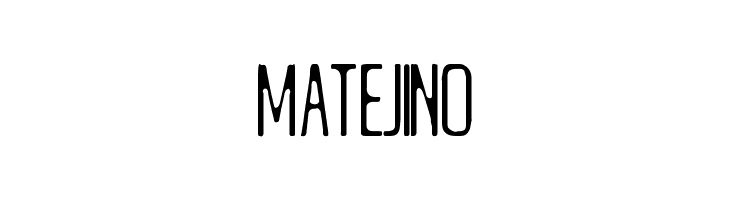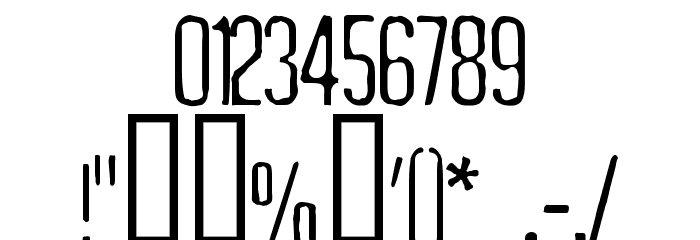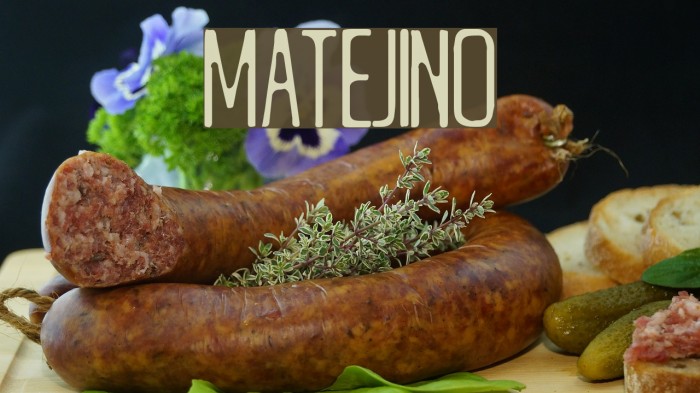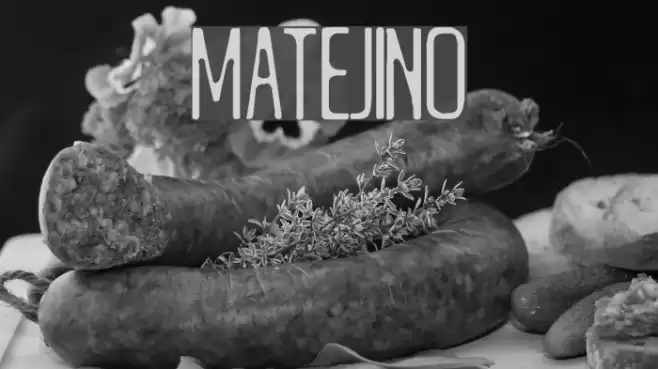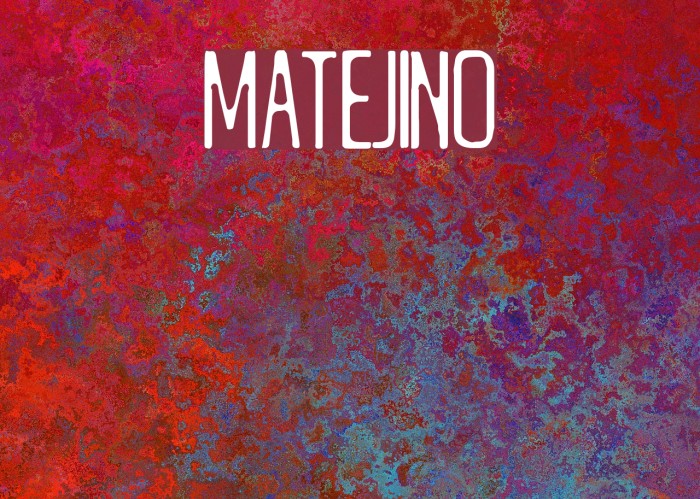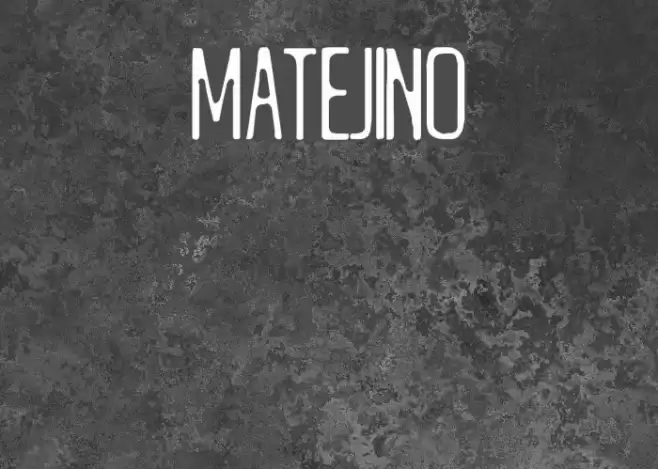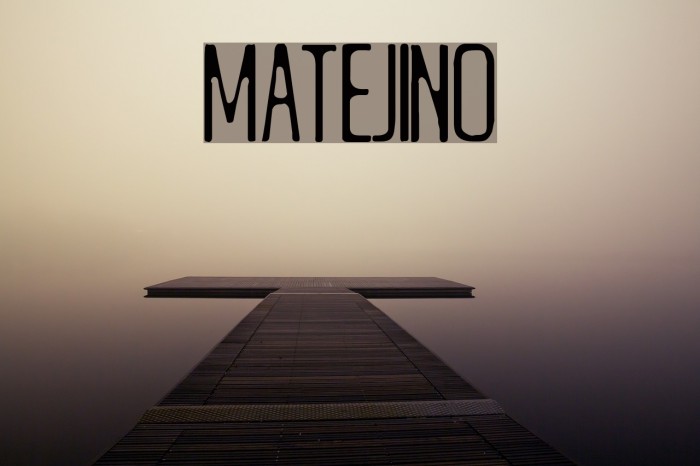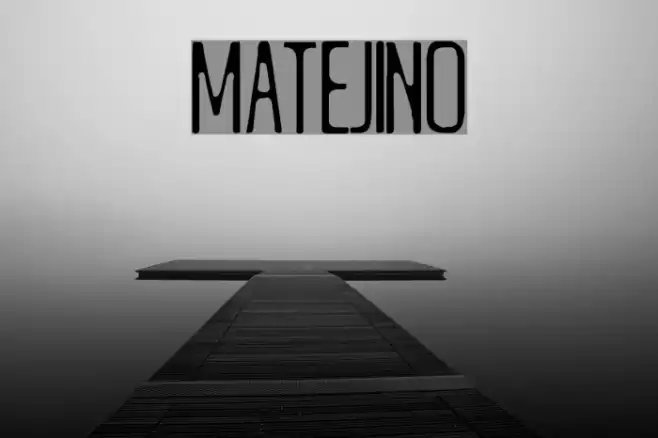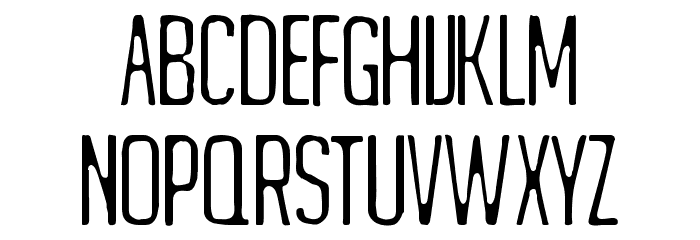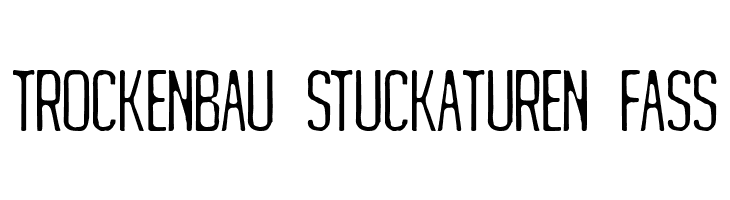
Matejino Font
✎ Distorted Eroded
Matejino Description
This font features a unique and modern design with elongated, narrow characters that give it a distinct appearance. The uppercase letters are tall and slightly condensed, while the lowercase letters maintain a consistent height, creating a harmonious balance. The numbers are clear and easy to read, with a uniform width that complements the overall style. Special characters are designed with a playful touch, adding a creative flair to the font. The strokes are consistent in thickness, providing a medium contrast that enhances readability. This font is suitable for a variety of design projects, offering a contemporary and stylish look.
| Proposed Projects | Ideal for branding, posters, and modern web design projects. |